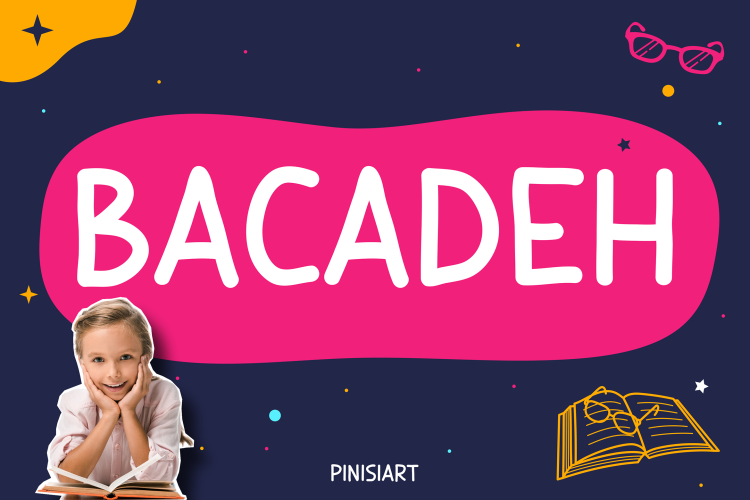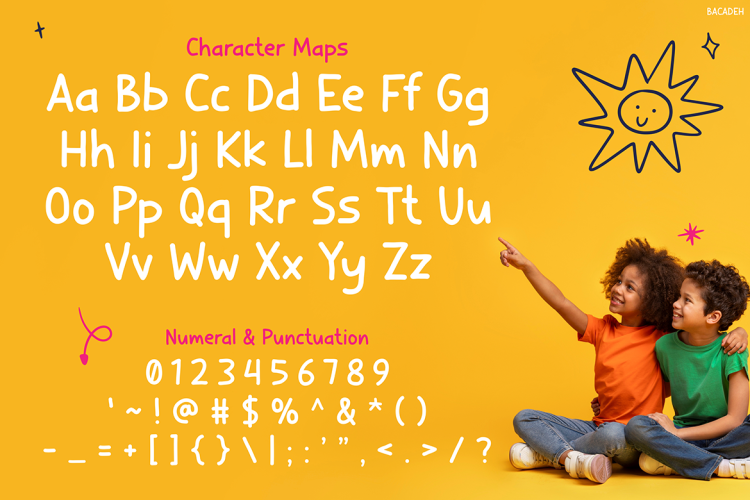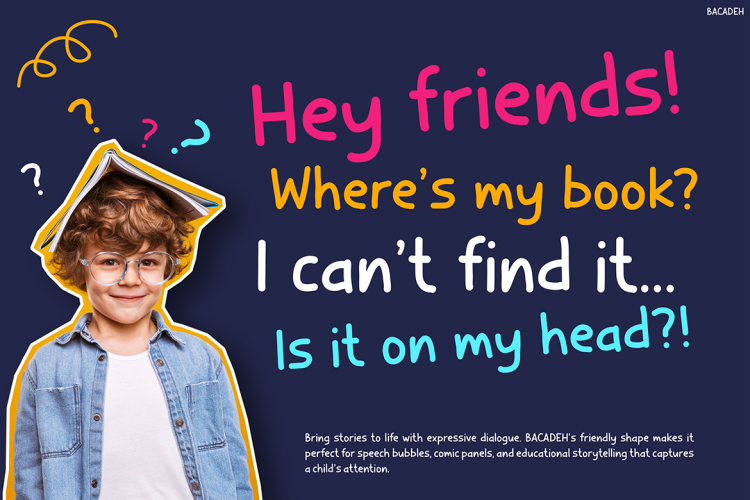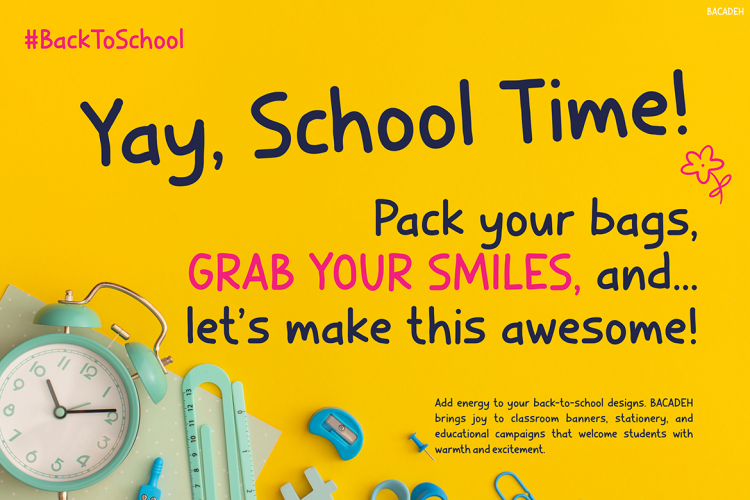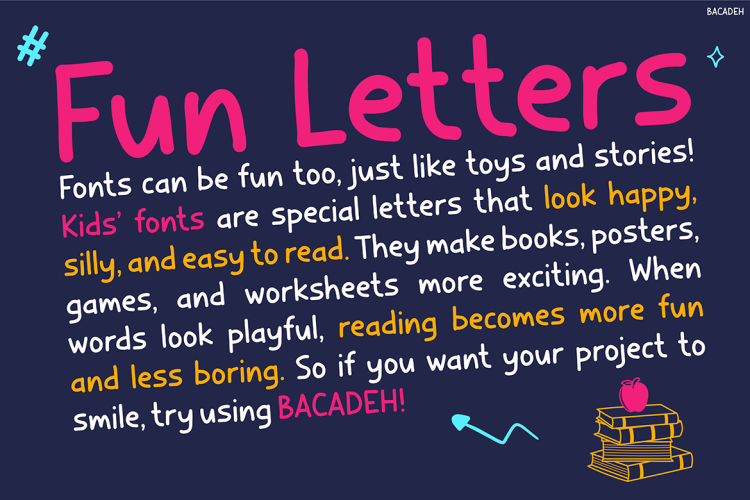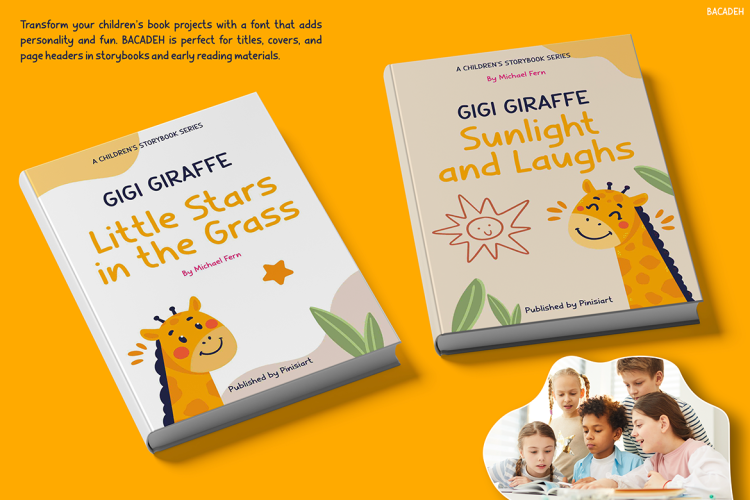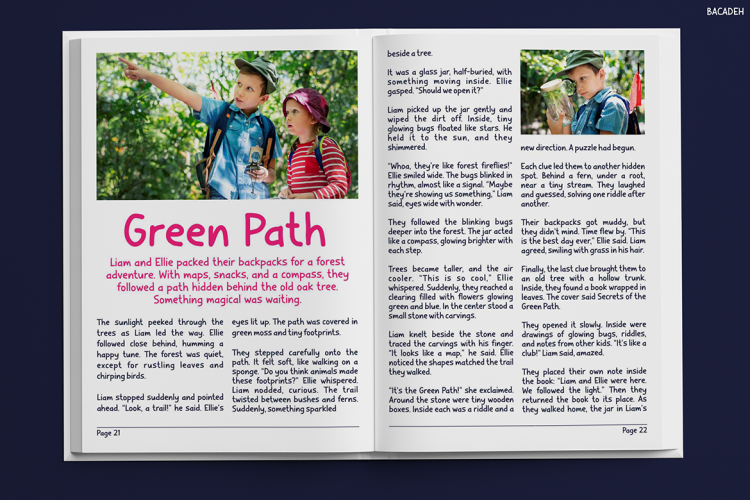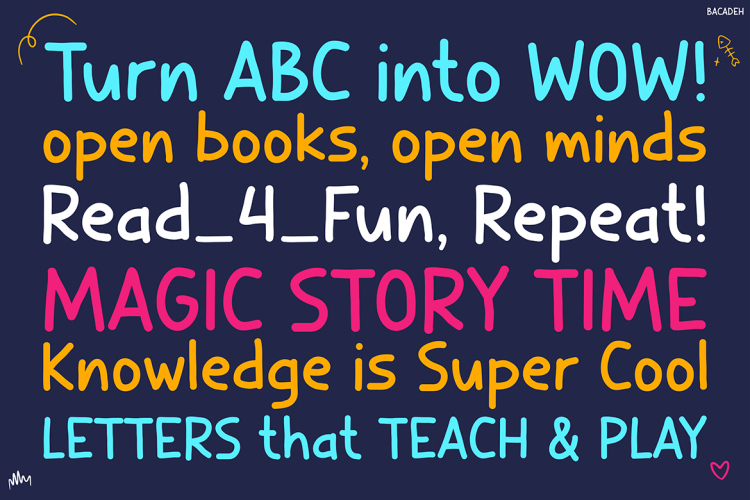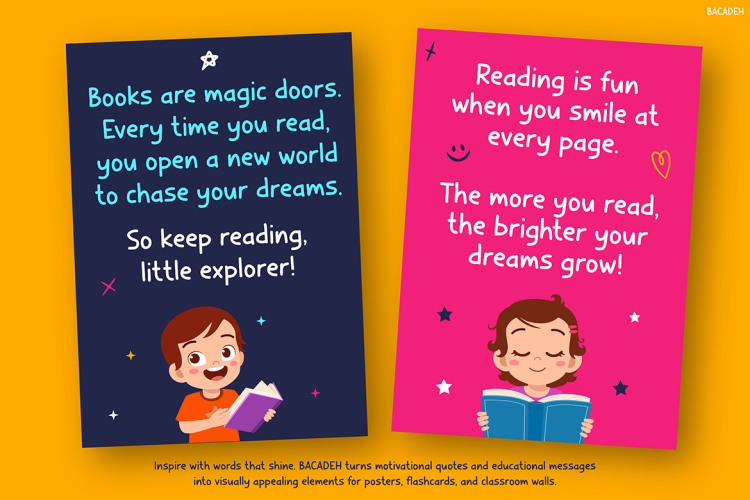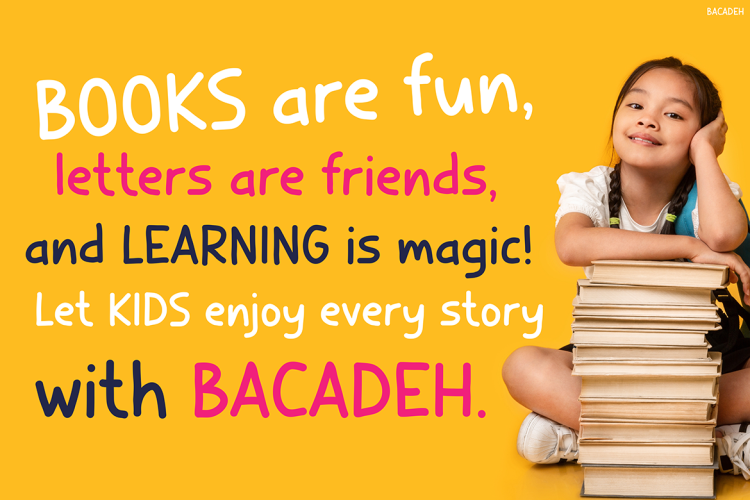
Kids Font Bacadeh: A Playful Typeface Full of Imagination and Charm
Kids Font Bacadeh is a delightful and lively typeface that instantly captures attention with its hand-drawn aesthetic and joyful energy. From the first glance, youโll notice its rounded edges and bouncy character spacing, which evoke a sense of innocence and creativity. Because of its whimsical design and friendly curves, this font becomes an ideal choice for projects aimed at children. Whether youโre creating storybooks, educational posters, or branding for kidsโ products, Bacadeh adds a personal and engaging touch.
Moreover, what sets Bacadeh apart is its versatility. Not only does it look fun, but it also maintains excellent legibilityโmaking it easy on young readersโ eyes. The playful yet clear letterforms allow it to be both decorative and functional, bridging the gap between fun and readability. Additionally, each character seems to dance off the page, helping to stimulate imagination and spark curiosity in any setting.
Kids Font Bacadeh is perfect for designers, educators, and content creators who cater to children and families. For instance, it works wonderfully in kindergarten worksheets, children’s birthday invitations, or animated video titles. Furthermore, marketers in the toy or educational industry can benefit from its vibrant and heartwarming vibe. Because of its light-hearted style, even social media content focused on parenting or kids’ activities will stand out when using this font.
Besides professionals, hobbyists and craft lovers will also enjoy using Bacadeh in DIY projects, such as scrapbooks or custom labels. In short, anyone who wants to inject a sense of cheer and imagination into their design will find Kids Font Bacadeh incredibly useful.